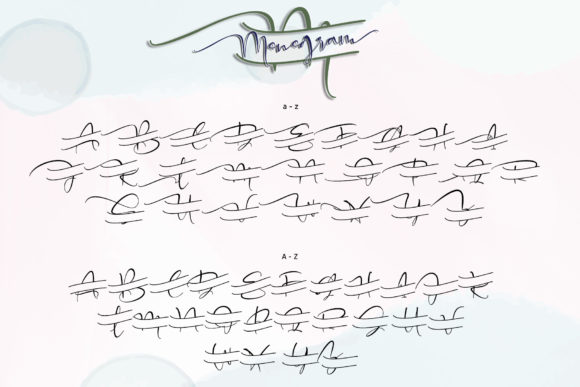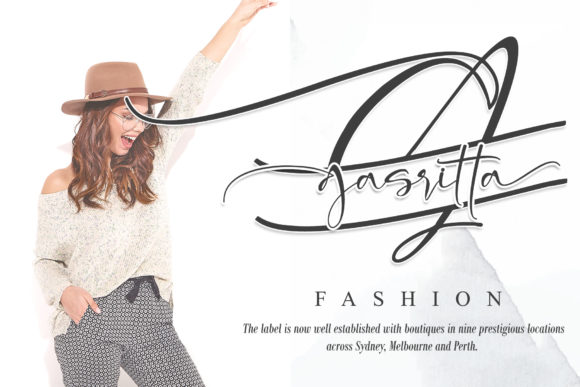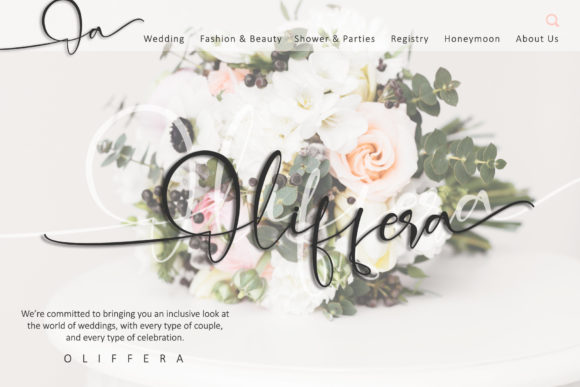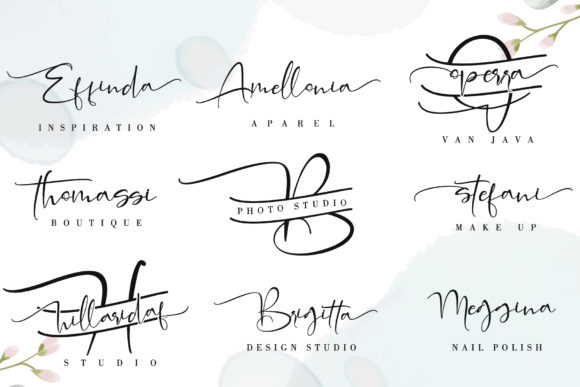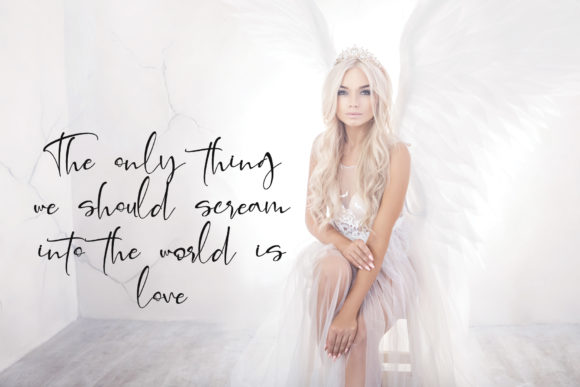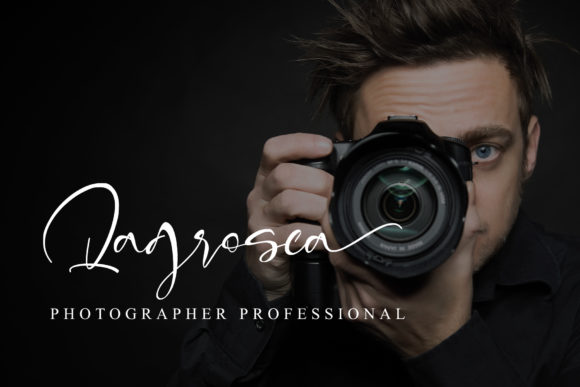
Alleffra Font
About Alleffra Font
Alleffra is an incredibly modern and sweet handwritten font that will turn any design idea into a true standout! Fall in love with its authentic feel and use it to create gorgeous wedding invitations, beautiful stationary art, eye-catching social media posts, and more. This font is PUA encoded which means you can access all of the glyphs and swashes with ease! It features a varying baseline, smooth lines, gorgeous glyphs and stunning alternates.